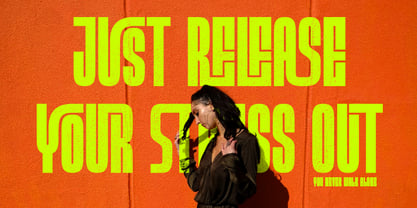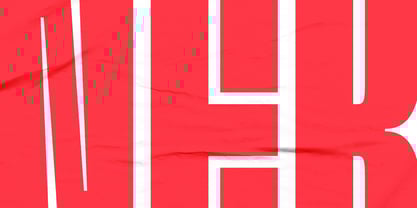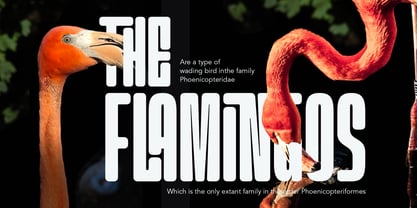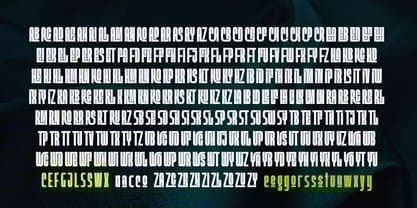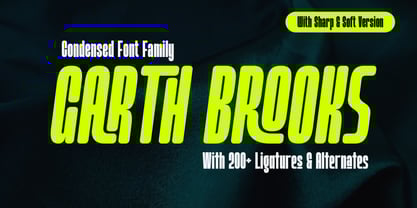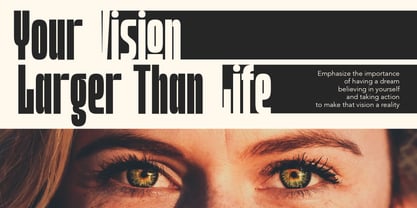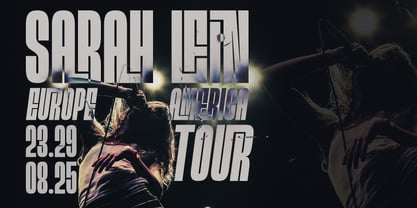
Garth Brooks Soft
by Lostvoltype
The Garth Brooks Soft Font Family was designed by Ryan Prasetya and published by Lostvoltype. Garth Brooks Soft contains 4 styles and family package options.
Garth Brooks is a super-condensed display typeface built for bold, high-impact visuals. Featuring over 200 custom ligatures, it transforms letterforms into striking compositions perfect for titles, thumbnails, posters, and logos. With tight spacing, tall forms, and dynamic alternates, Garth Brooks delivers a loud, modern presence wherever space is limited but attention is essential.